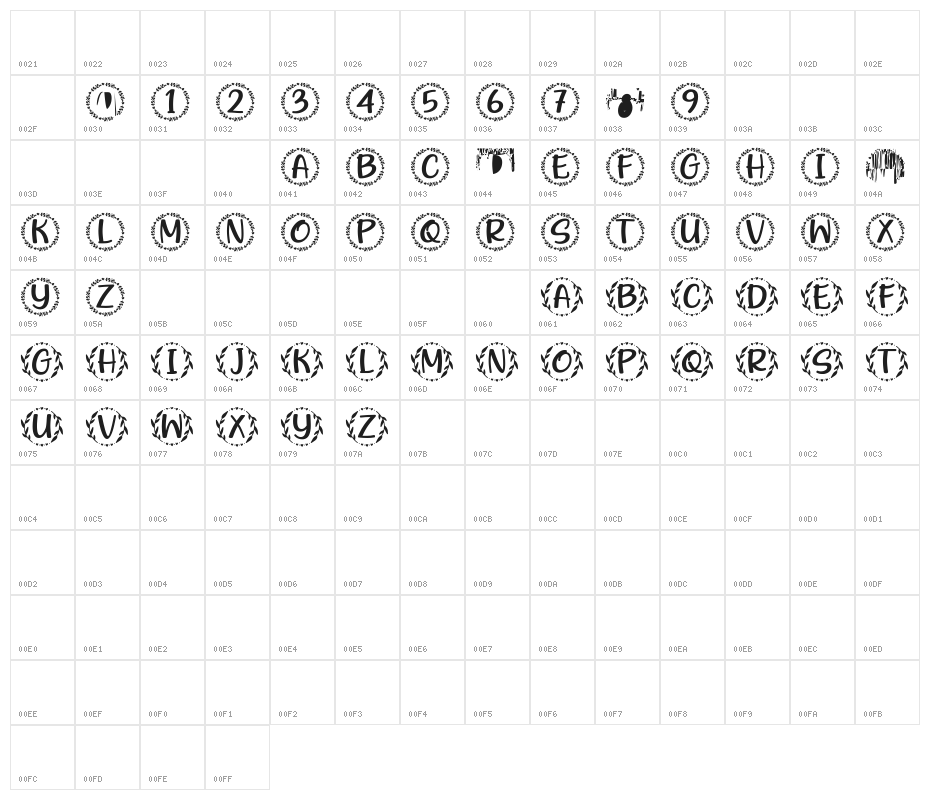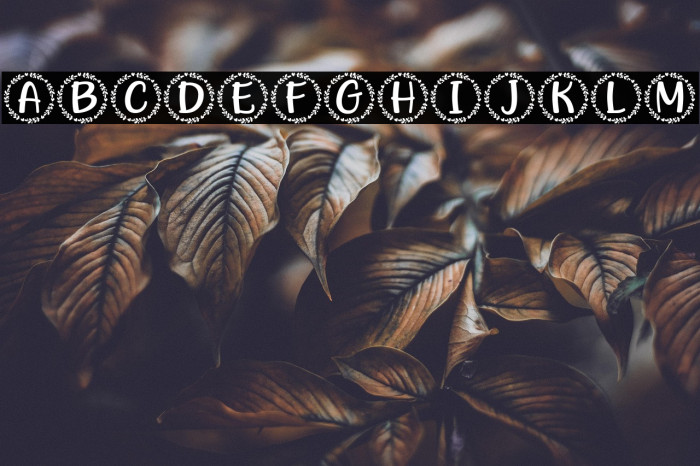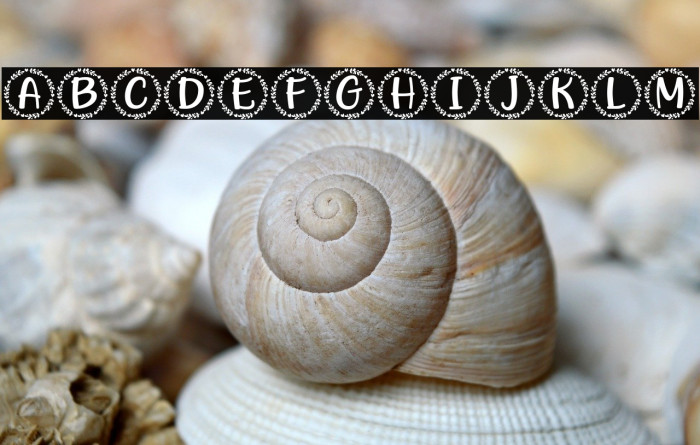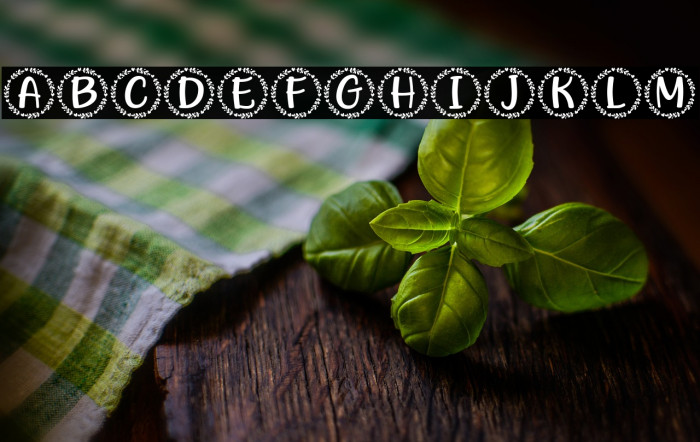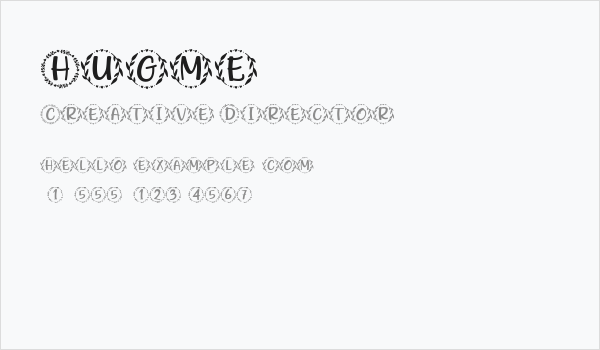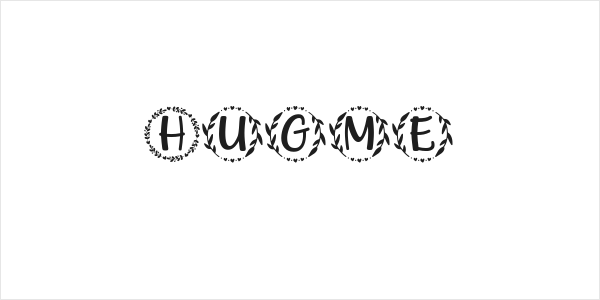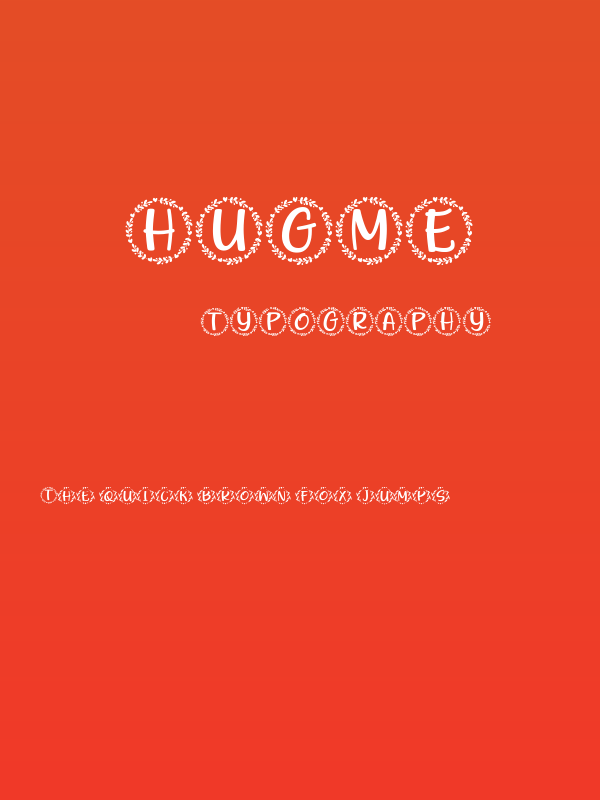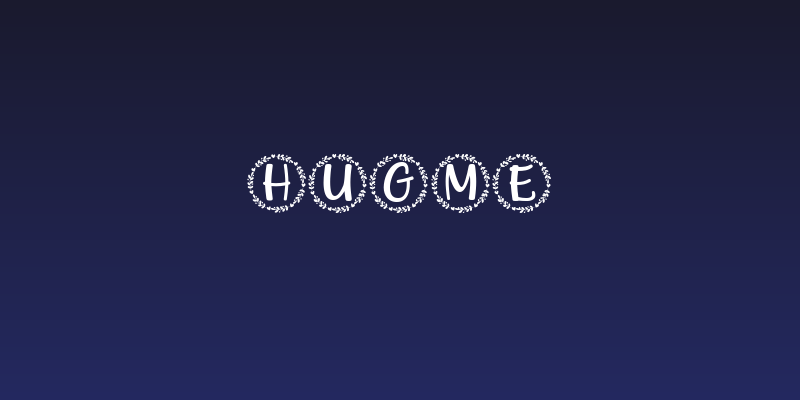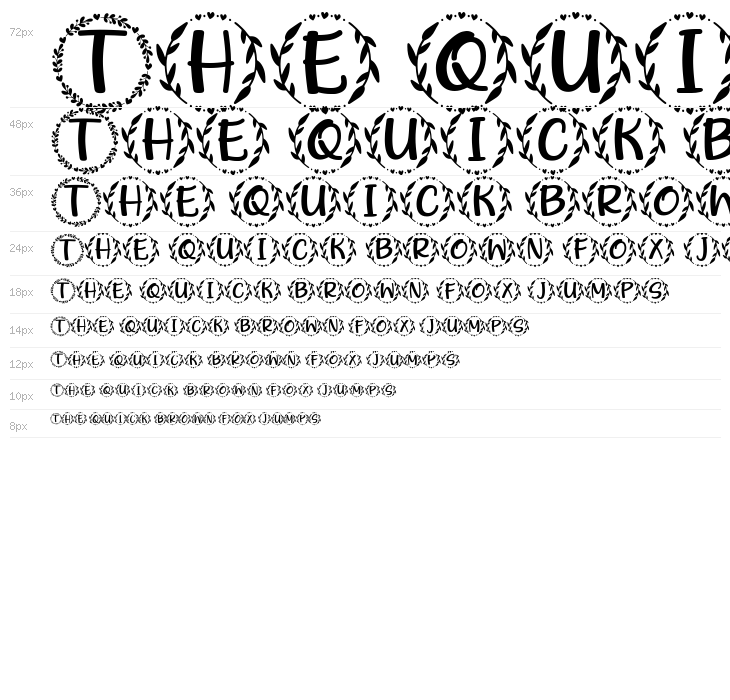
Hugme Font
Hugme Description
This font features a unique decorative style where each character is enclosed within a circular wreath of leaves, giving it a whimsical and nature-inspired appearance. The letters are uppercase and bold, with a playful yet elegant design. The numbers follow the same style, maintaining consistency throughout the set. The intricate detailing of the wreaths adds a touch of sophistication, making it suitable for creative and artistic projects. The overall look is both charming and eye-catching, perfect for designs that require a touch of nature or a rustic theme.
| Use Case | Logos, Invitations, Posters |
| Proposed Projects | Ideal for wedding invitations, greeting cards, eco-friendly brand logos, and nature-themed event posters. |